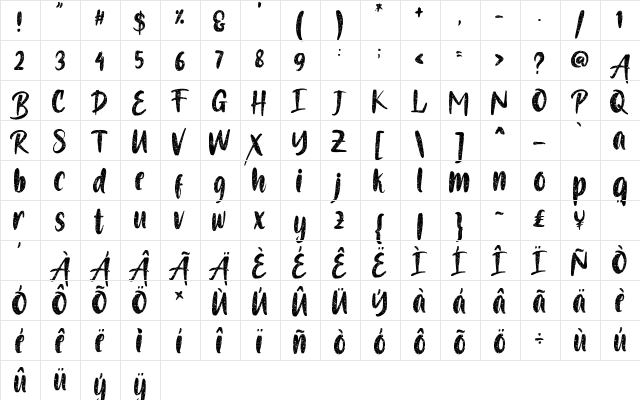
Blondy Regular
Design Context for Blondy Typeface
Blondy is a composed and adaptable typeface that performs quietly and consistently across a wide range of design contexts.